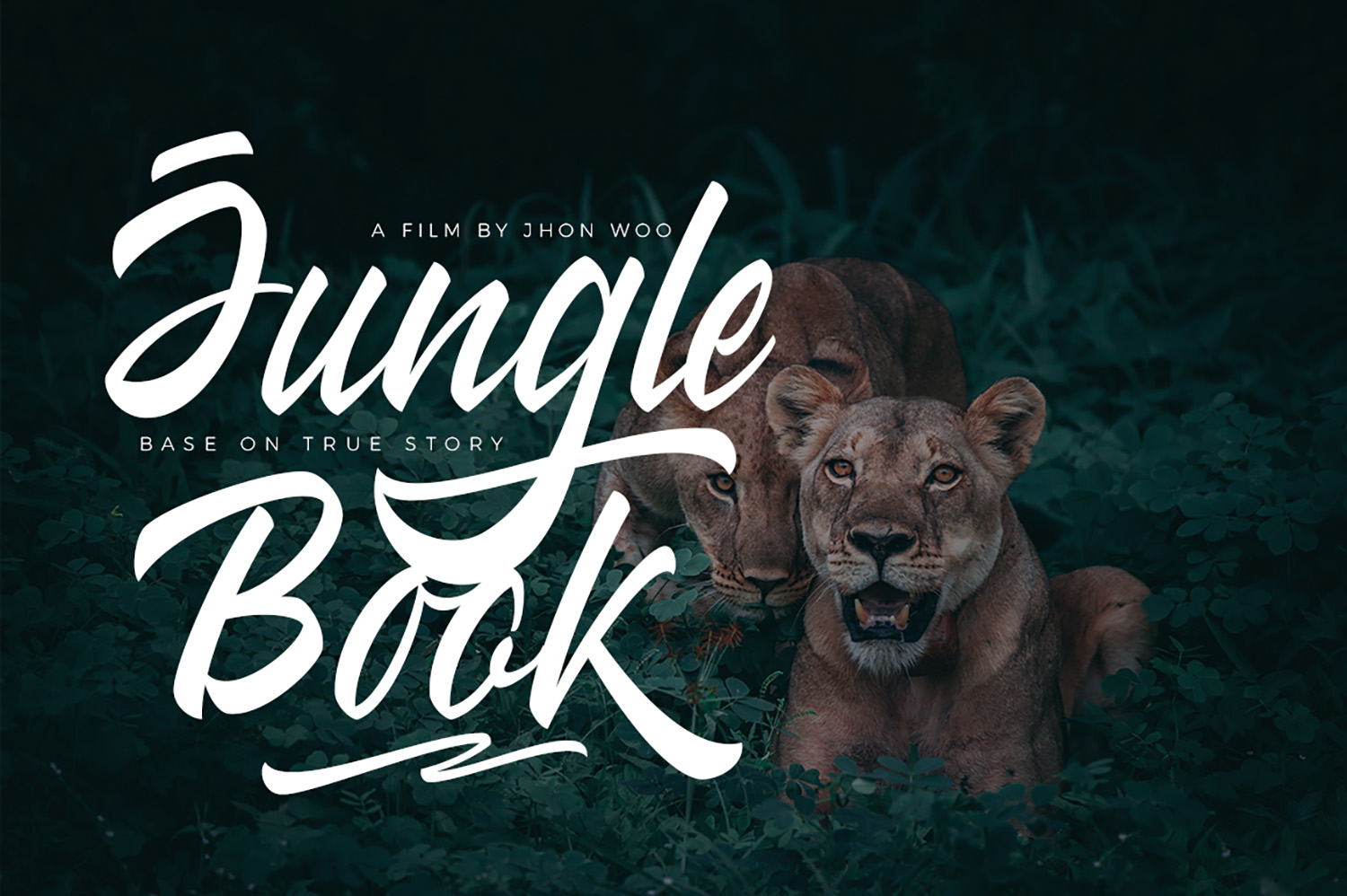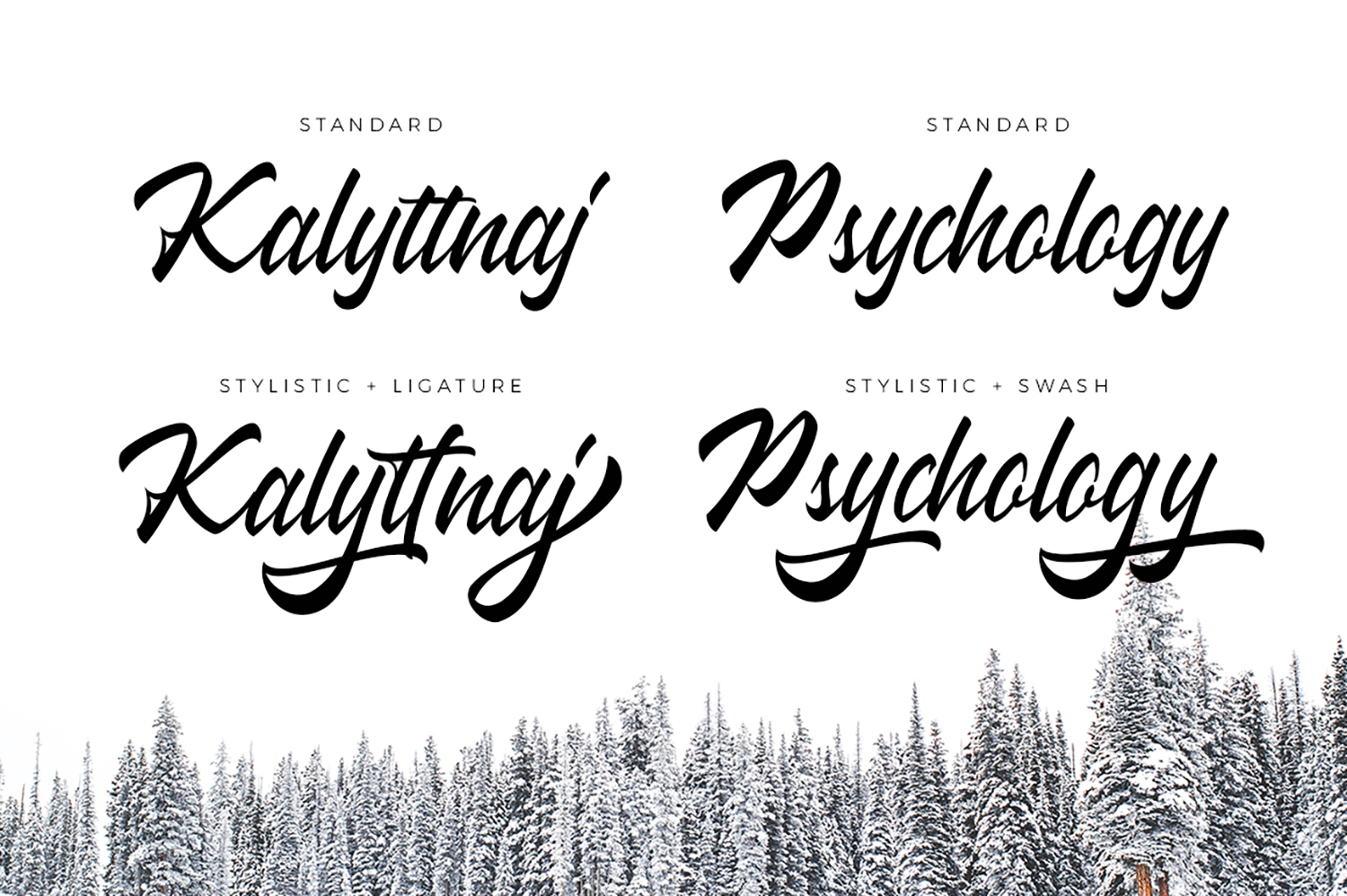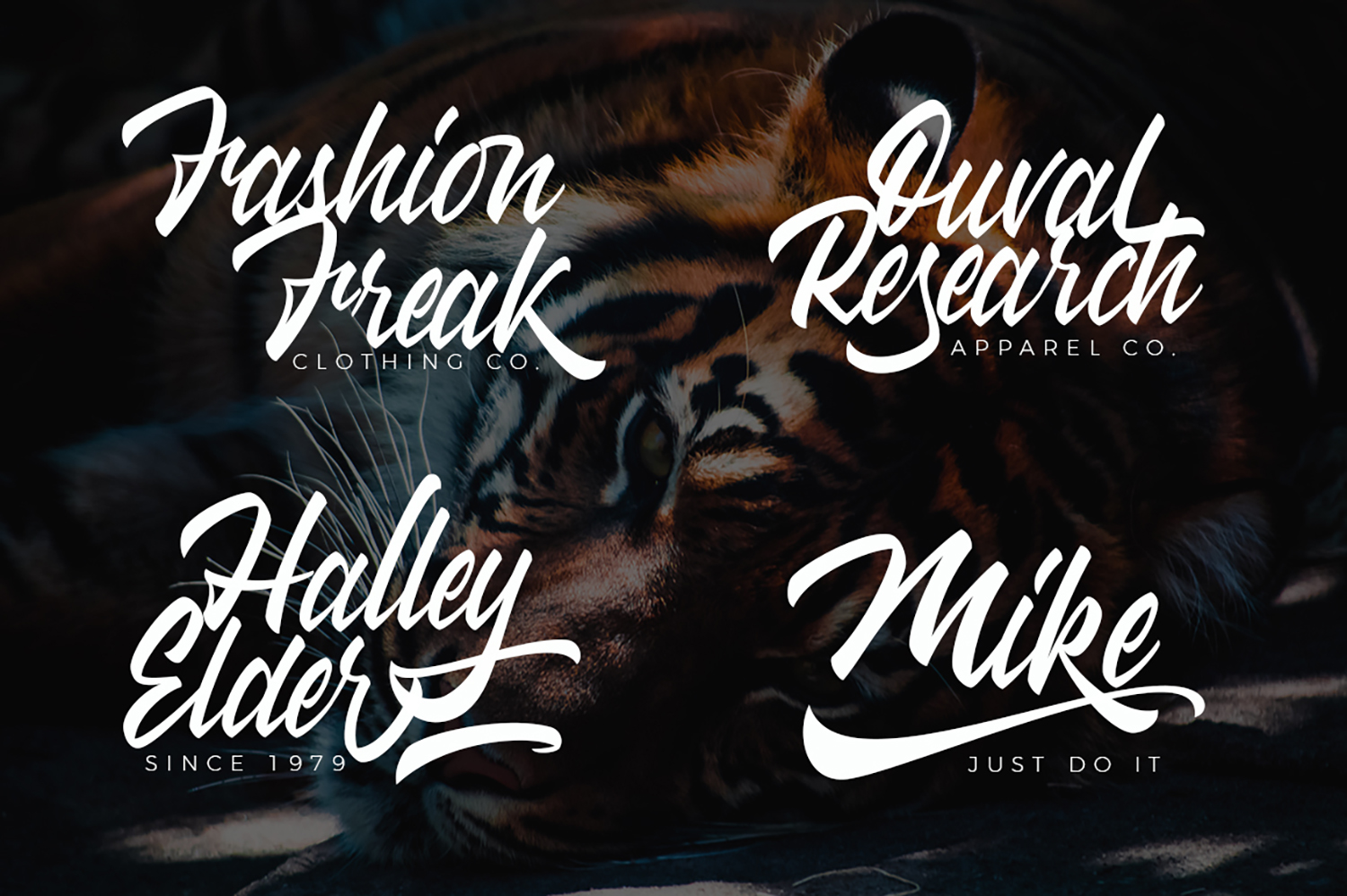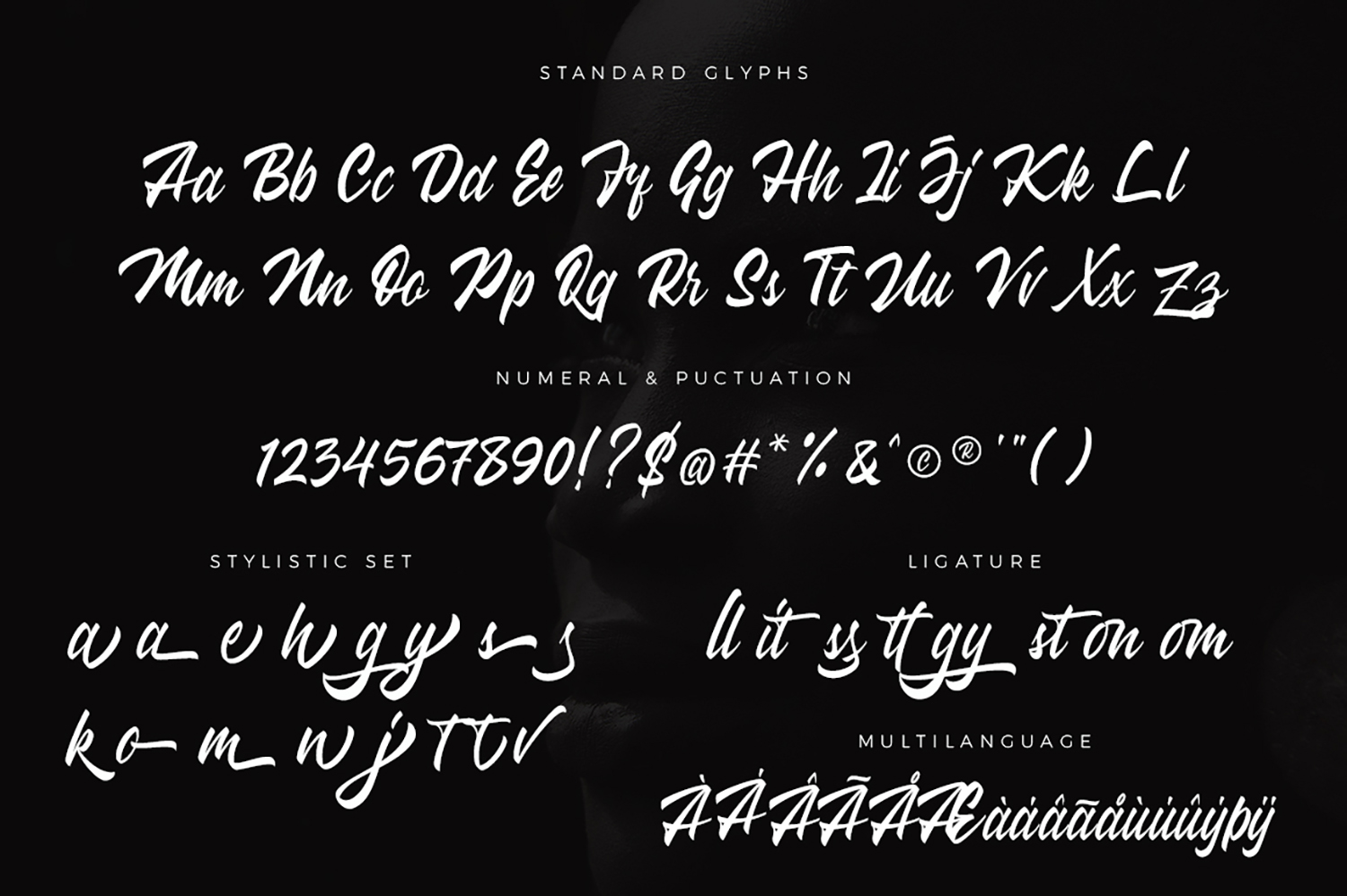
Wakanda Script Free Font
Wakanda Script Free Font is a stylish & modern hand-letter script typeface. This font will look awesome and amazing in any way to your latest project. Wakanda is perfect for many different projects such as logos & branding, invitation, stationery, wedding designs, social media posts, advertisements, product packaging, product designs, label, photography, watermark, special events, or anything. This free typeface was designed by a talented Creatype Studio. If you like it don’t forget to check out the full version.